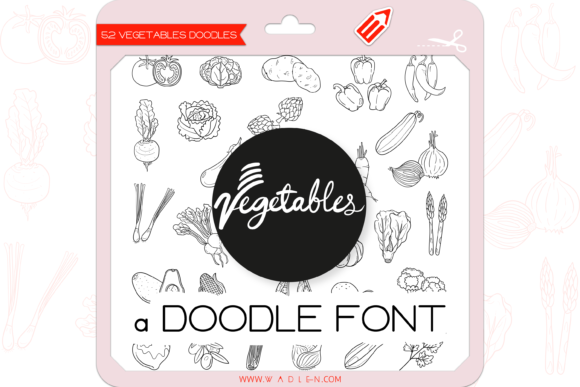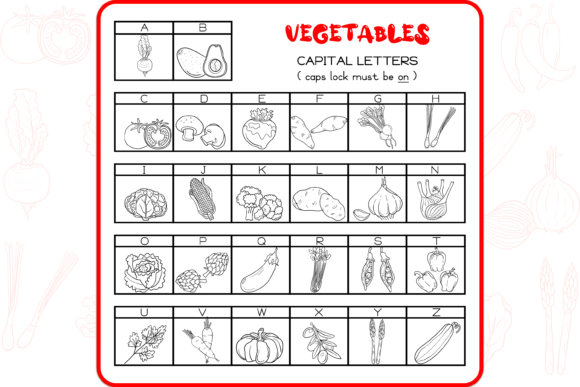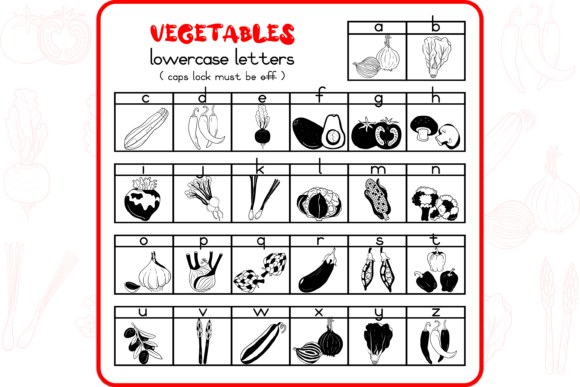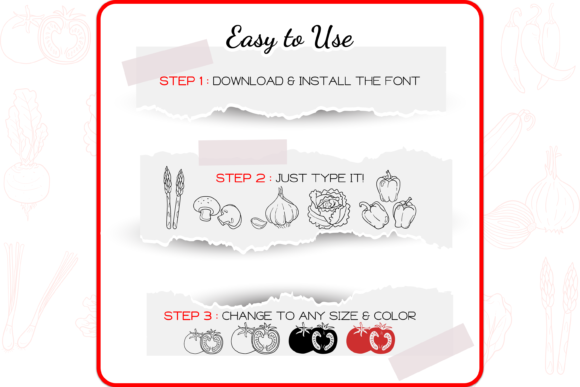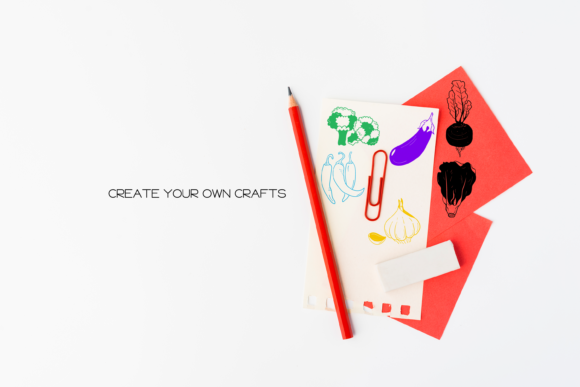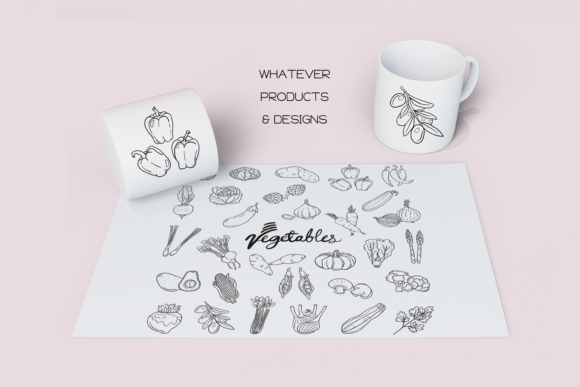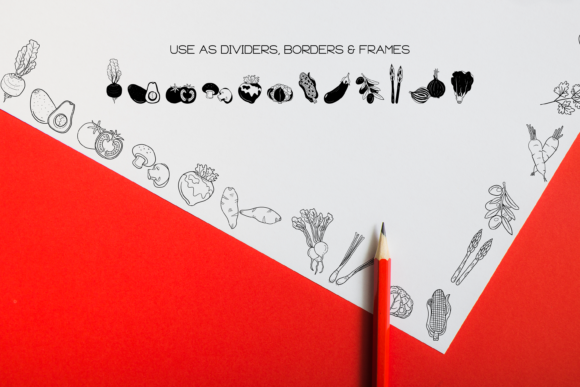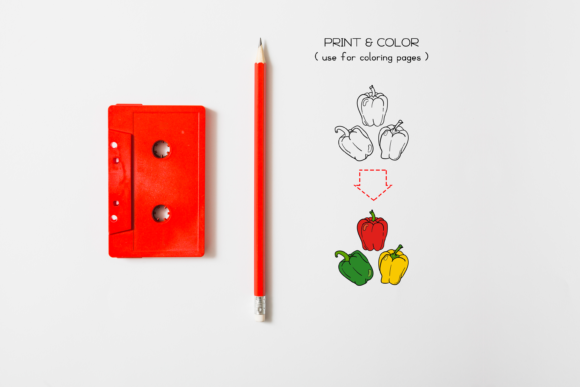
The Vegetables Font
About The Vegetables Font
The Vegetables dingbats font is indeed a unique and cute font that features 52 hand-drawn doodles of various vegetables. Here are a few reasons why this font can make your creative ideas stand out:
1. Whimsical and Playful: The hand-drawn doodles in The Vegetables font have a whimsical and playful style, adding a touch of charm to your designs. Whether you’re working on recipe cards, food-related illustrations, or gardening-themed projects, incorporating these cute vegetable doodles can bring a sense of fun and delight to your artwork.
2. Visual Appeal: The detailed and intricate designs of the vegetable doodles make them visually appealing and captivating. Each vegetable glyph in the font is carefully crafted to showcase the unique characteristics and shapes of different vegetables. By using these doodles as decorative elements, borders, or dividers, you can instantly enhance the visual appeal of your designs.
3. Versatility: The Vegetables font offers a wide variety of vegetable doodles, providing you with ample options to choose from and experiment with. Whether you’re creating a menu, designing packaging for a farm-to-table product, or working on a vegetarian-themed project, this font allows you to mix and match the vegetable doodles to create unique compositions that align with your creative vision.
4. Organic and Natural Vibes: As The Vegetables font focuses on hand-drawn doodles of vegetables, it naturally exudes an organic and natural feel. By incorporating these vegetable elements into your designs, you can evoke a sense of freshness, health, and sustainability. This is especially beneficial if you’re working on projects related to healthy eating, organic farming, or promoting a plant-based lifestyle.
5. Easy Integration: The Vegetables font can be seamlessly integrated into your creative process. Each vegetable doodle corresponds to a specific glyph, making it easy to access and use within your design software. The font’s user-friendly nature allows you to quickly incorporate the vegetable doodles into your artwork without the need for extensive manual drawing.
In summary, The Vegetables dingbats font offers a unique and cute collection of hand-drawn vegetable doodles that can elevate your creative ideas. Whether you’re aiming to bring whimsy to your designs, enhance visual appeal, convey organic vibes, or promote healthy eating, this font provides a versatile and easy-to-use toolset. By leveraging the variety and charm of The Vegetables font, you can make your arts look outstanding and capture the attention of your audience.